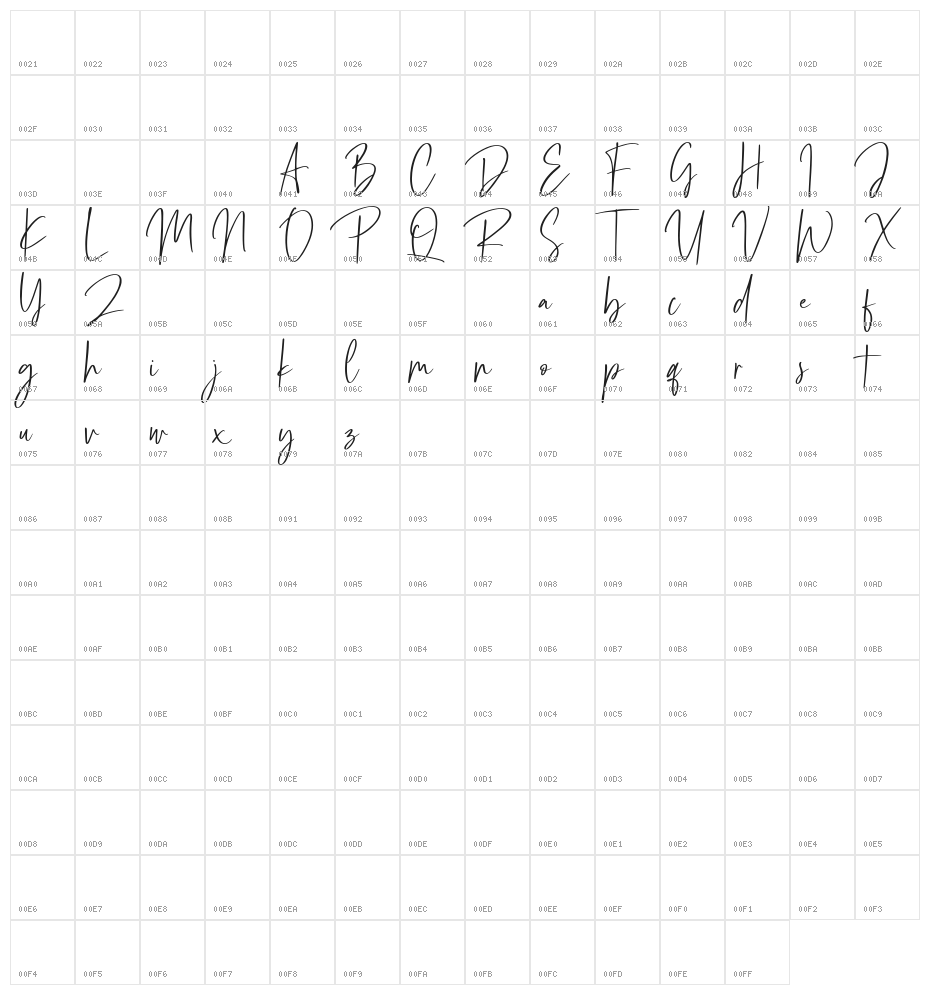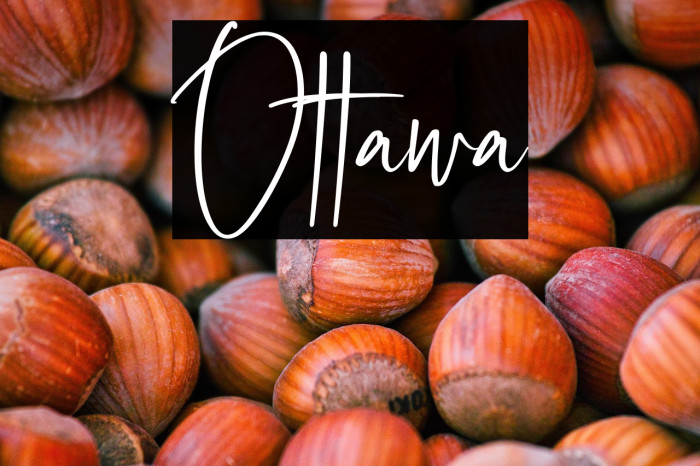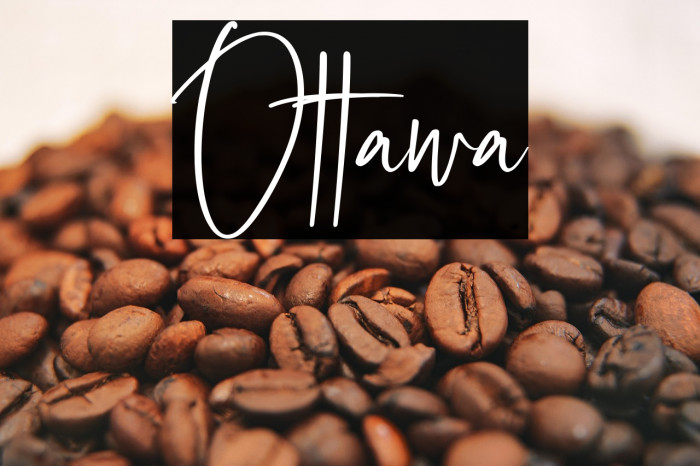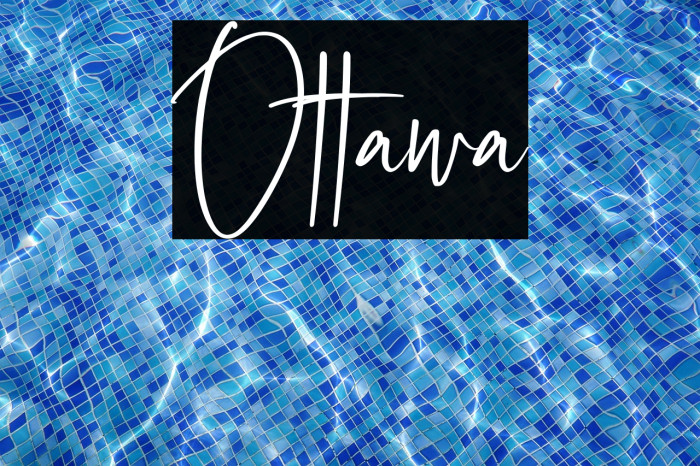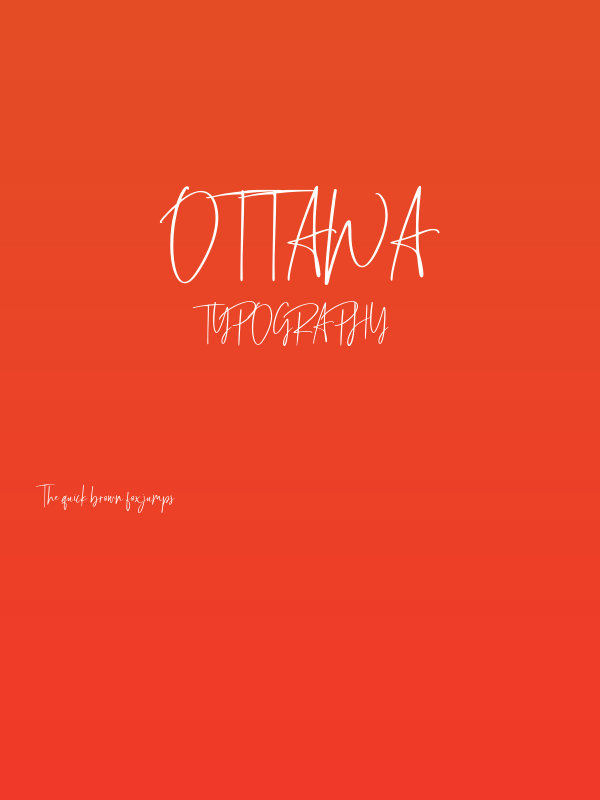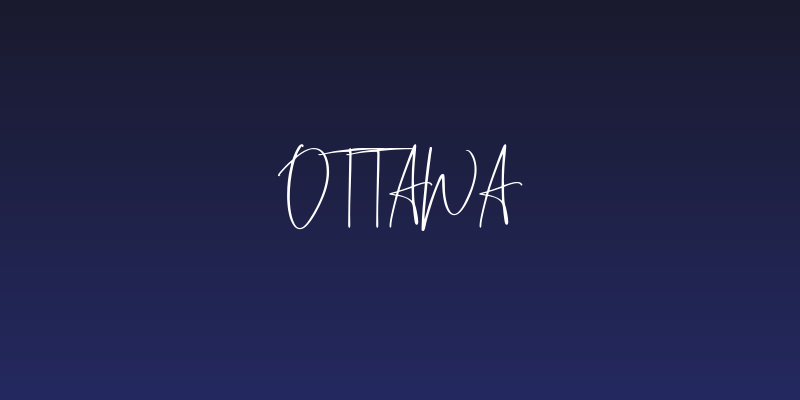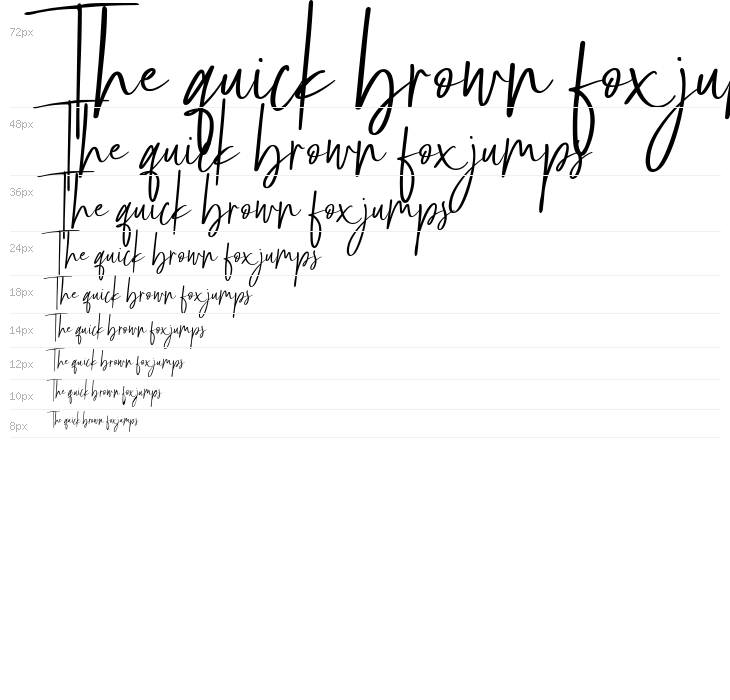
Ottawa Font
Ottawa Description
This font features a dynamic and expressive handwritten style, characterized by its fluid and flowing letterforms. The uppercase and lowercase letters exhibit a natural, cursive appearance with varying stroke widths that add a sense of movement and personality. The characters are slightly slanted, enhancing the casual and informal feel of the font. The overall design is both elegant and approachable, making it suitable for a variety of creative applications. The numbers and special characters maintain the same lively and organic style, ensuring consistency across all text elements.